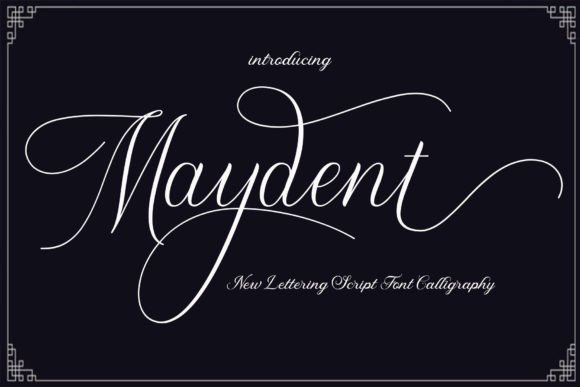
Journey into the enchanting realm of Maydent Font, a captivating script font that will ignite your creativity and transform your designs into masterpieces of elegance. Crafted with meticulous attention to detail and precision, Maydent is a visual symphony waiting to be unleashed upon your digital canvas.
Indulge in the allure of its graceful curves and stylish flourishes, each stroke a testament to the artistry behind this extraordinary font. Whether you're a seasoned designer or just starting your creative journey, Maydent will effortlessly elevate your projects, adding a touch of sophistication and individuality to every word you type.
Envision your designs adorned with Maydent's enchanting script, captivating your audience with its timeless beauty. Let the flowing lines of this font carry your message with grace, creating a visual experience that resonates with emotion and elegance. From stunning logos and branding materials to eye-catching social media posts and website designs, Maydent seamlessly adapts to your creative vision, leaving an indelible mark on all who encounter it.
Harness the power of Maydent's versatility and unlock endless possibilities for creative expression. Whether you're crafting heartfelt invitations, designing elegant stationery, or creating captivating marketing materials, this font will effortlessly elevate your work. Its timeless charm transcends genres and styles, making it the perfect choice for a wide range of projects.
Immerse yourself in the world of Maydent and discover a font that is both visually stunning and functionally brilliant. PUA encoded for seamless access to all glyphs and swashes, Maydent empowers you to unleash your creativity without limits. Experience the joy of effortless customization, tailoring this font to perfectly match your unique design aesthetic.
Join the ranks of discerning designers who have embraced the allure of Maydent Font, transforming their creative visions into extraordinary realities. Let your imagination soar as you witness the transformative power of this font, breathing life into your designs and leaving a lasting impression on all who behold them.